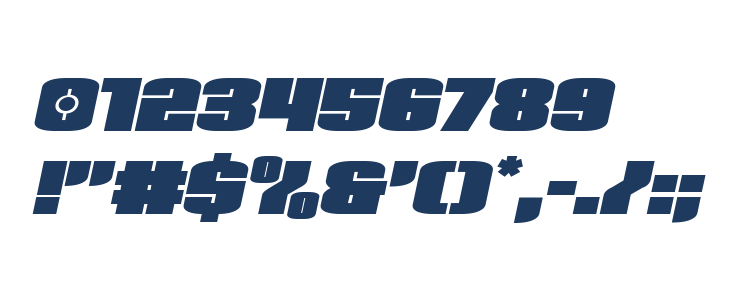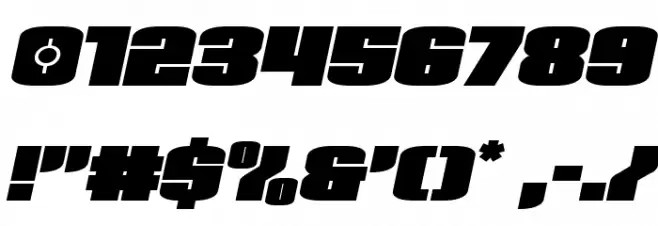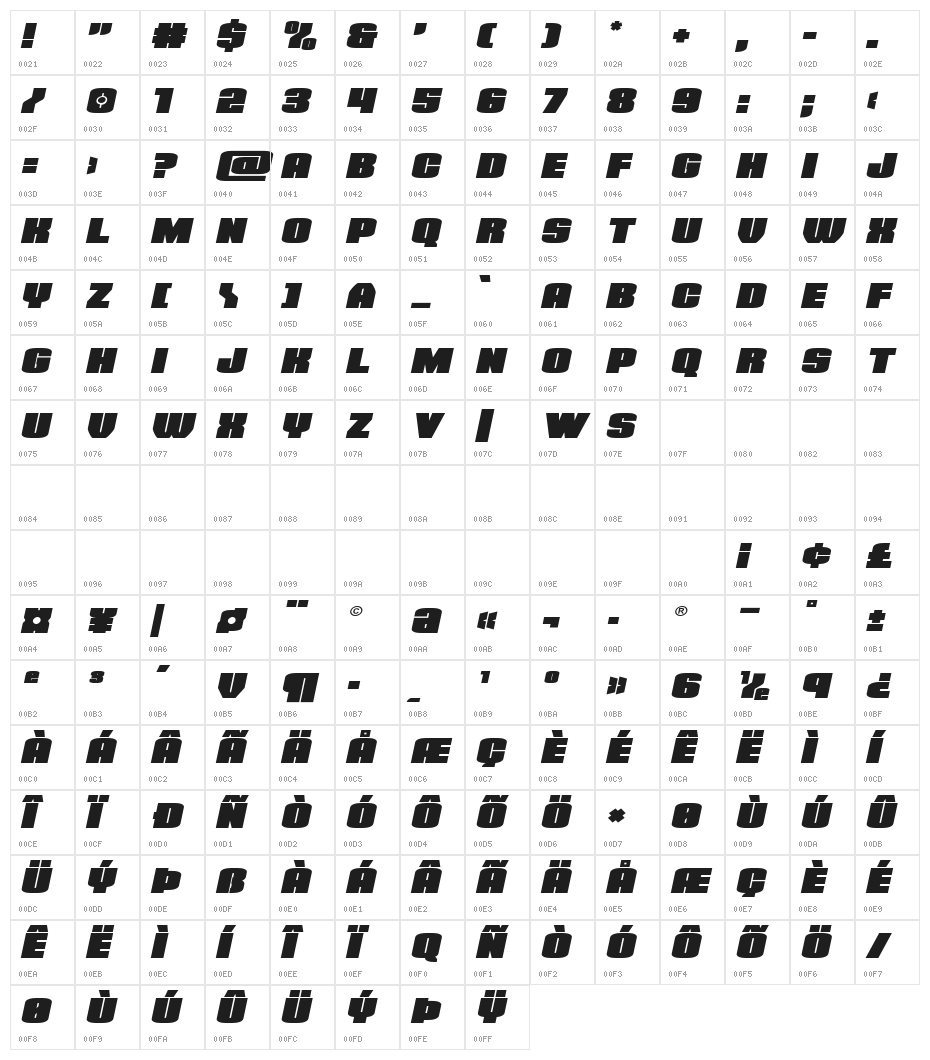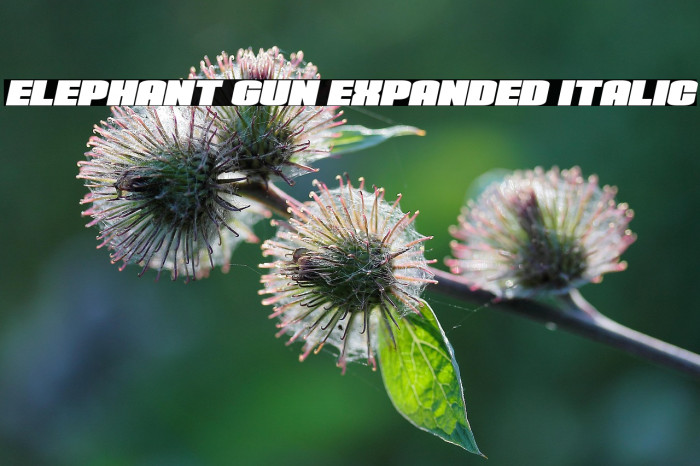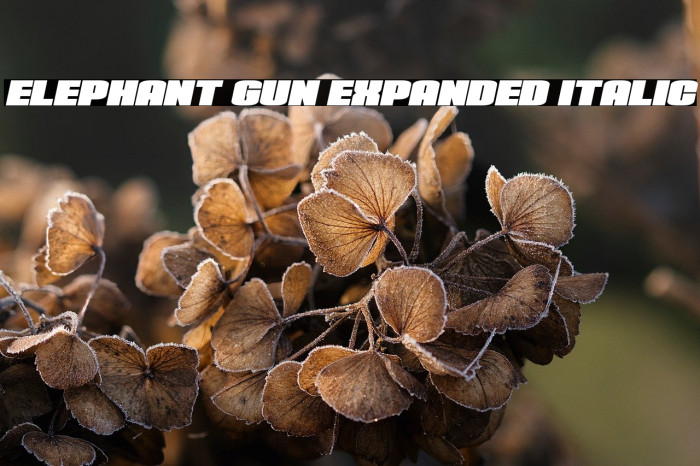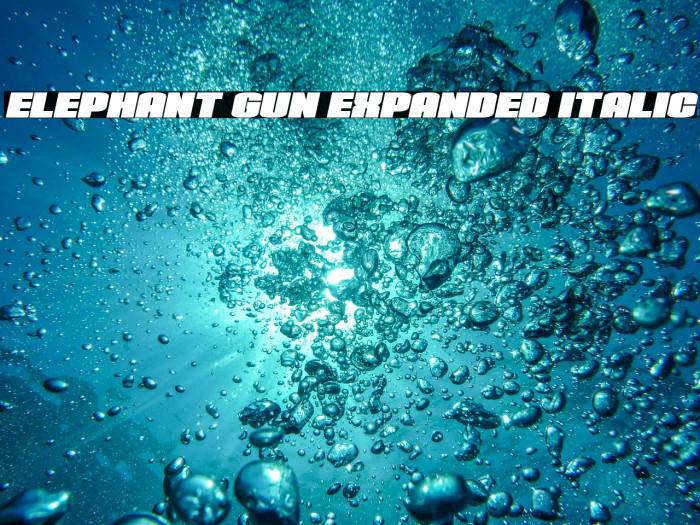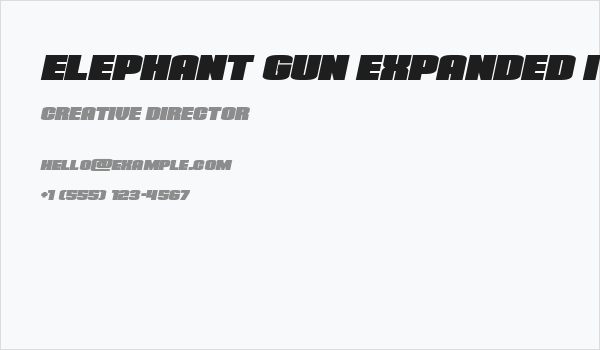
Elephant Gun Expanded Italic Font
Elephant Gun Expanded Italic Description
This font is a bold and dynamic typeface with an expanded and italicized style. It features thick, heavy strokes that convey a sense of strength and impact. The characters are wide, giving them a commanding presence on the page. The italic slant adds a sense of motion and urgency, making it suitable for attention-grabbing headlines and statements. The overall design is modern and assertive, with a slight retro touch due to its boldness and expanded form. The numbers and special characters maintain the same bold and expansive style, ensuring consistency across all elements.
A bold, expanded, and italicized font with a modern and impactful style from Uncategorized fonts.
- Proposed Projects: Ideal for sports branding, action movie posters, dynamic advertisements, and bold headlines.